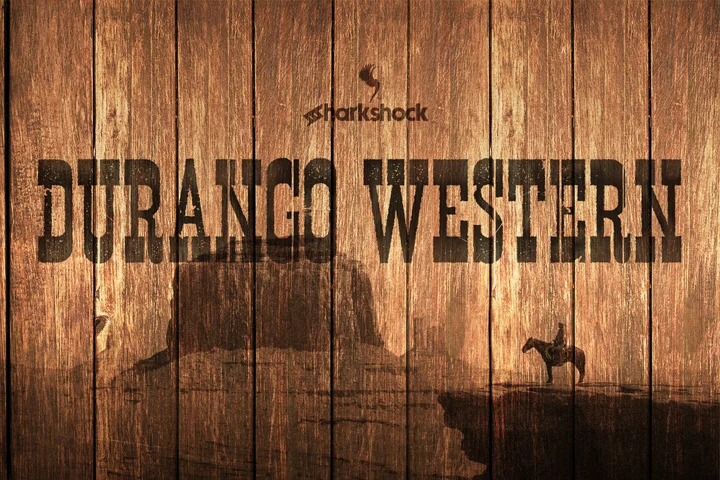
Durango Western Font
About Durango Western Font
In the vast landscape of typography, certain fonts captivate our attention and transport us to different eras or evoke specific emotions. One such font that has stood the test of time is Durango Western Font. With its rugged charm and undeniable Western flair, Durango Western Font has become a staple in design, branding, and nostalgic aesthetics. In this blog post, we’ll explore the captivating history, its impact on readability, and usage in design, and even compare it to other popular Western fonts. So saddle up and join us on this typographic journey!
History of Durango Western Font
Durango Western Font has deep roots in the American West, drawing inspiration from the iconic lettering styles of the Wild West era. It beautifully captures the spirit of adventure, ruggedness, and the frontier mentality. Developed over decades, this font style has become synonymous with the Western aesthetic, making it a popular choice in various design projects.
Usage in Design
One of the remarkable aspects of Durango Western Font is its versatility. It finds its place in diverse industries and projects, from rustic-themed branding and packaging to signage and posters for Western-style events. The font’s bold, distinctive letterforms add a touch of authenticity and nostalgia to any design, instantly transporting the viewer to a bygone era.
Impact on Readability
While Durango Western Font boasts a unique aesthetic, one may wonder about its impact on readability. Due to its stylized and ornamental nature, it may not be the most legible option for body text or small sizes. However, when used thoughtfully and selectively, it can be highly effective in titles, headlines, and logos, where its eye-catching appeal shines.
Comparison with Other Western Fonts
Durango Western Font is just one among many remarkable Western-inspired typefaces. When compared to other popular Western fonts like Tombstone, Western Grit, or Buffalo Western, Durango stands out with its bold and charismatic letterforms. Its unique details and charm make it a standout choice for projects seeking an authentic Western vibe.
Conclusion
Durango Western Font is more than just a typographic choice; it’s a gateway to the rich heritage and rugged spirit of the American West. Its usage in design evokes a sense of adventure, nostalgia, and authenticity. While it may not be the most readable font for all purposes, its impact is undeniable when used appropriately. Whether you’re working on a branding project, designing a poster, or looking to add a touch of the Wild West to your creative endeavors, Durango Western Font is an excellent choice.
So, next time you find yourself captivated by the Western aesthetic or aiming to transport your audience to a time of cowboys, saloons, and vast landscapes, consider embracing the charm of Durango Western Font. Let its bold strokes and distinctive letterforms tell a story of adventure, resilience, and the untamed spirit of the West.